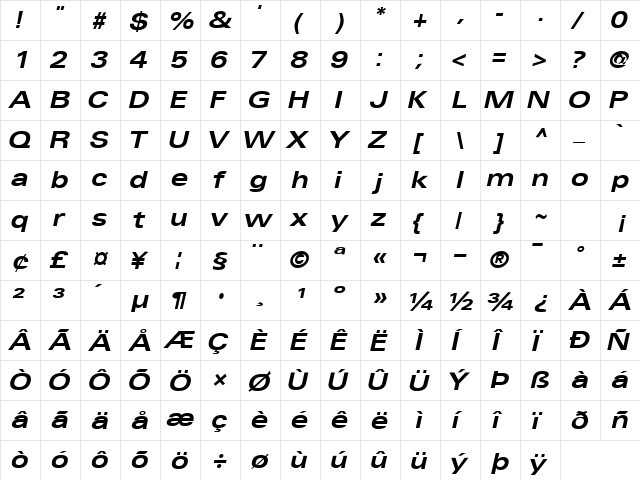
NovaExpandedSSK Bold Italic
Design Context for NovaExpandedSSK Typeface
NovaExpandedSSK takes a measured approach to typography — its balanced proportions and neutral character make it a reliable workhorse for both digital and print work. The slanted form adds forward momentum and visual energy. The heavy weight commands attention and anchors typographic hierarchies.
Pro Tip: Try NovaExpandedSSK for annotation and caption copy alongside an upright companion — the contrast in angle creates a dynamic but ordered typographic system.